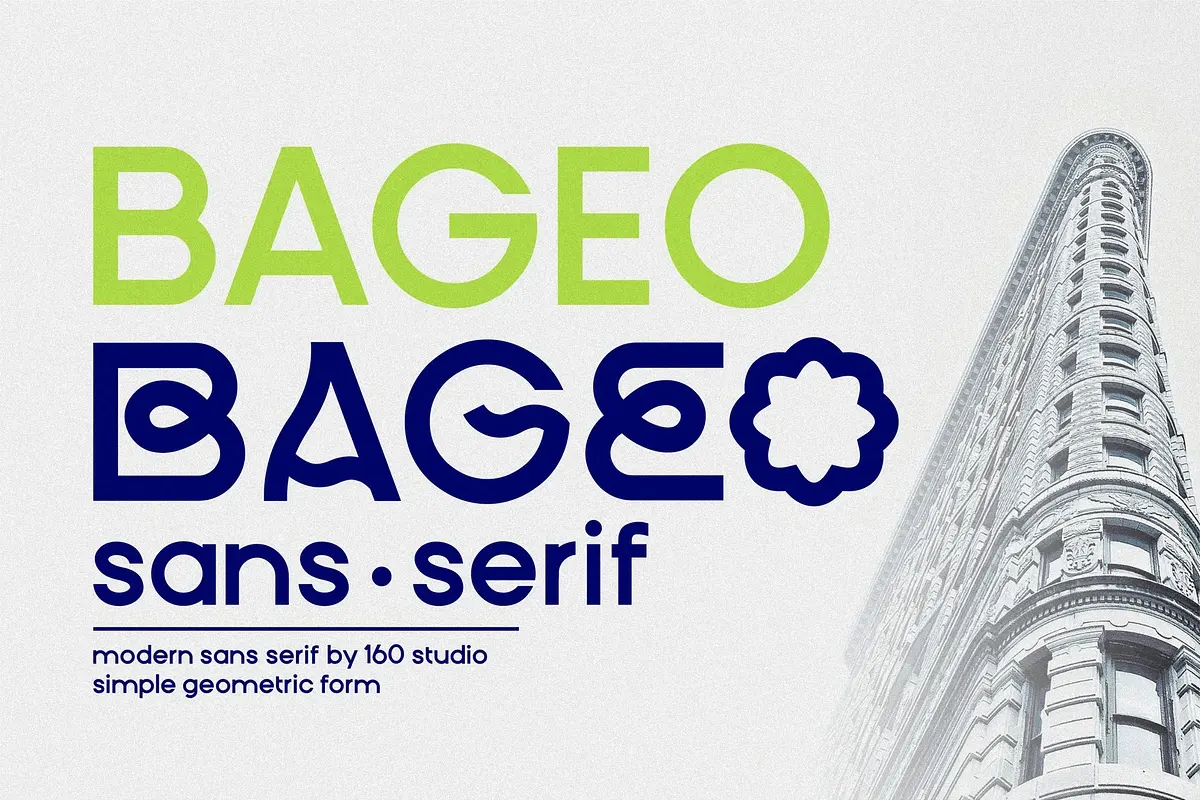
Bageo Font Free Download is a sleek and modern sans-serif typeface that combines elegance with contemporary design. With clean lines and a sophisticated structure, this font is perfect for logos, branding, web design, editorial layouts, and any project that requires a professional and polished look.
The minimalist approach of Bageo ensures clarity and versatility, making it ideal for both large headlines and smaller body text. Whether you're working on a tech brand, a corporate identity, or a modern magazine design, this font will elevate your typography with its stylish and refined appearance.
Enhance your designs with Bageo Font Free Download and add modern sophistication and clarity to your work. Perfect for designers looking for a clean and contemporary font with professional appeal.